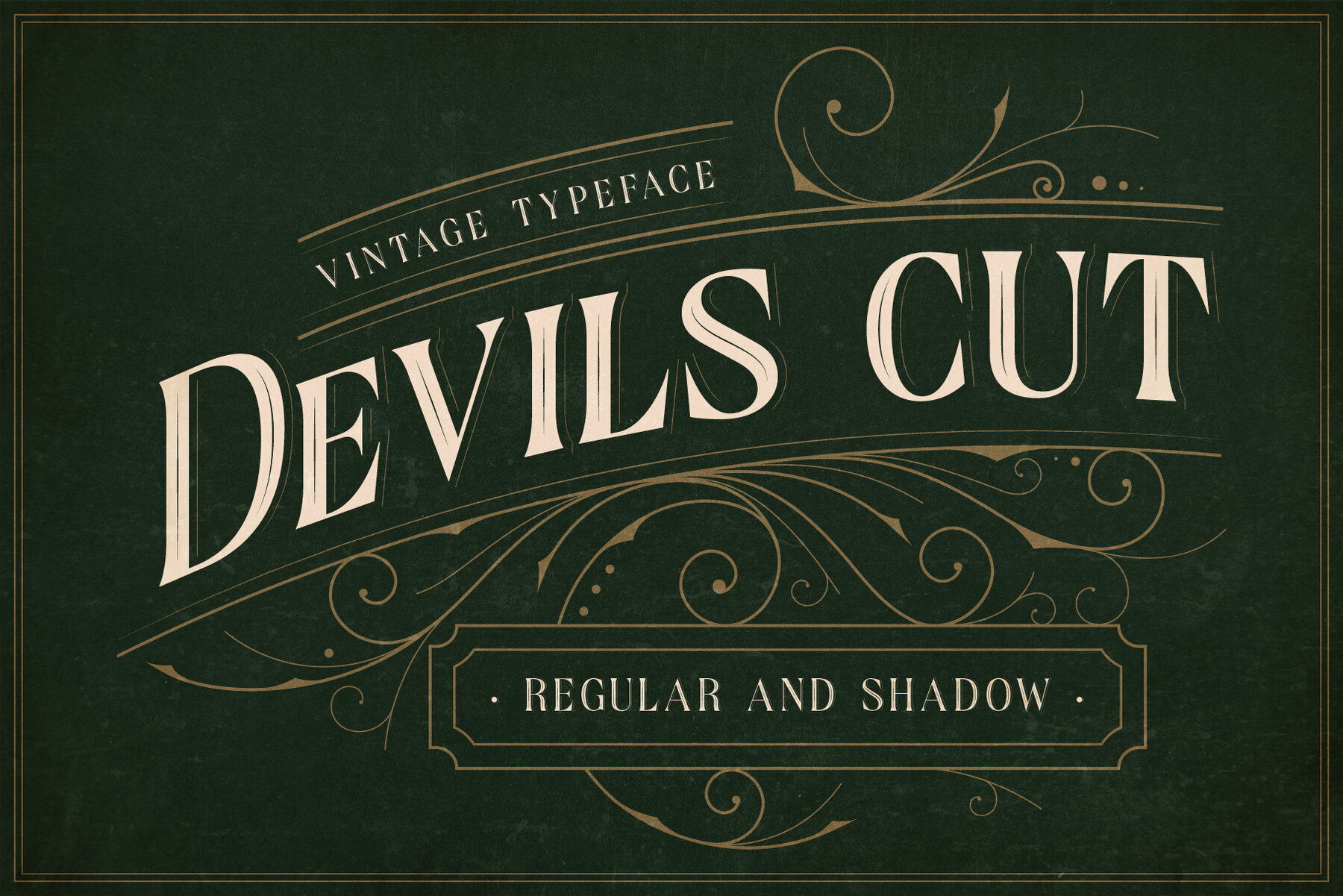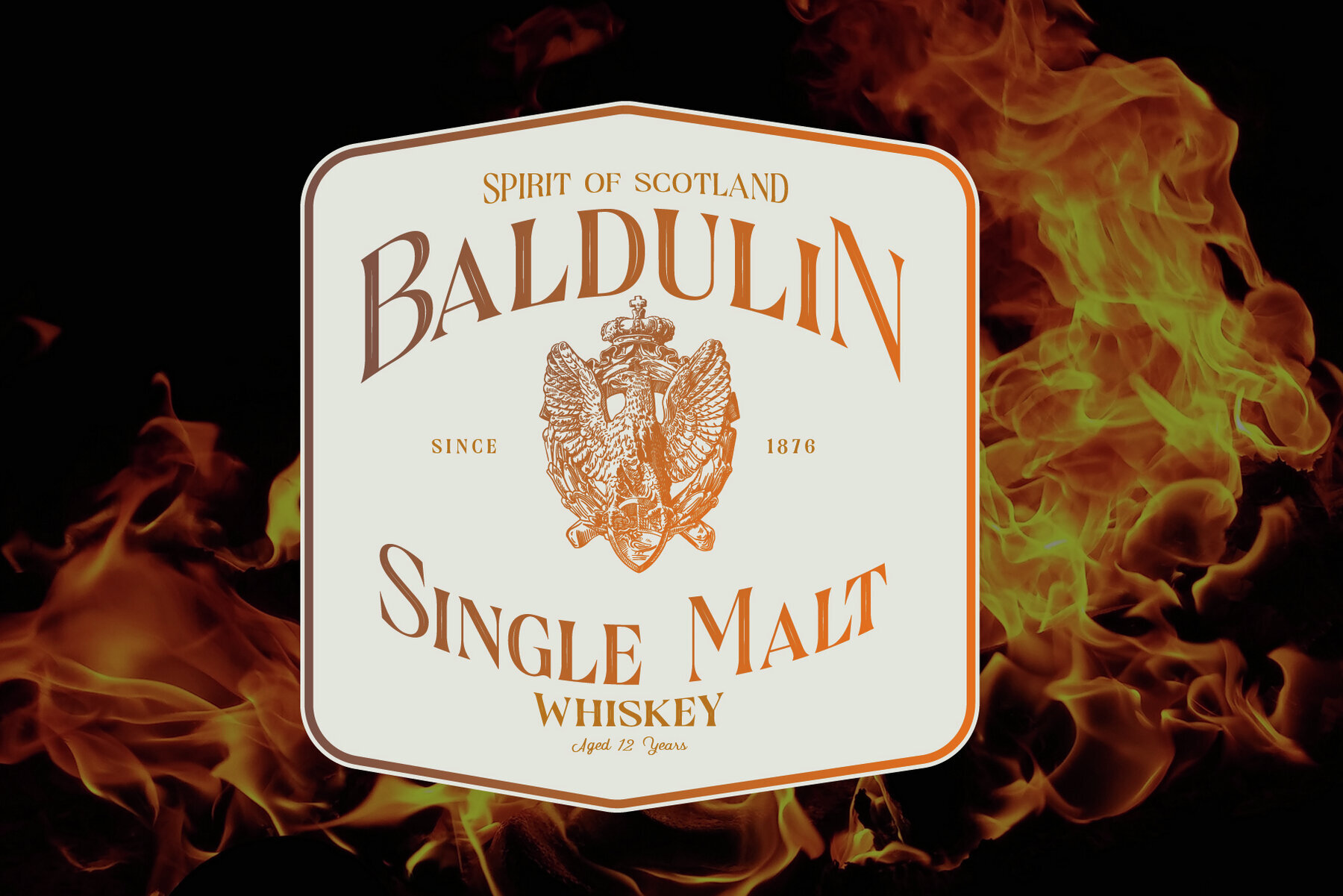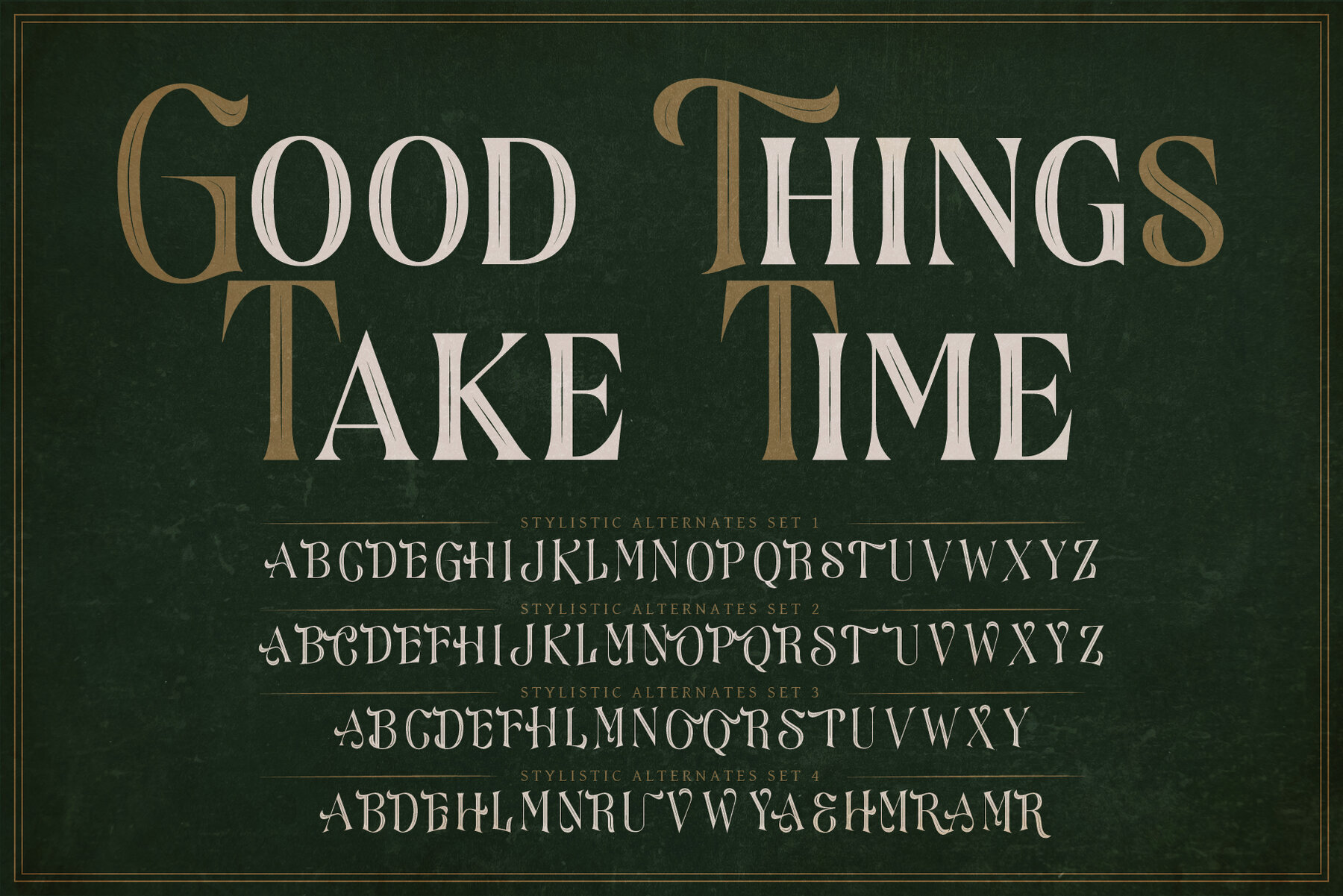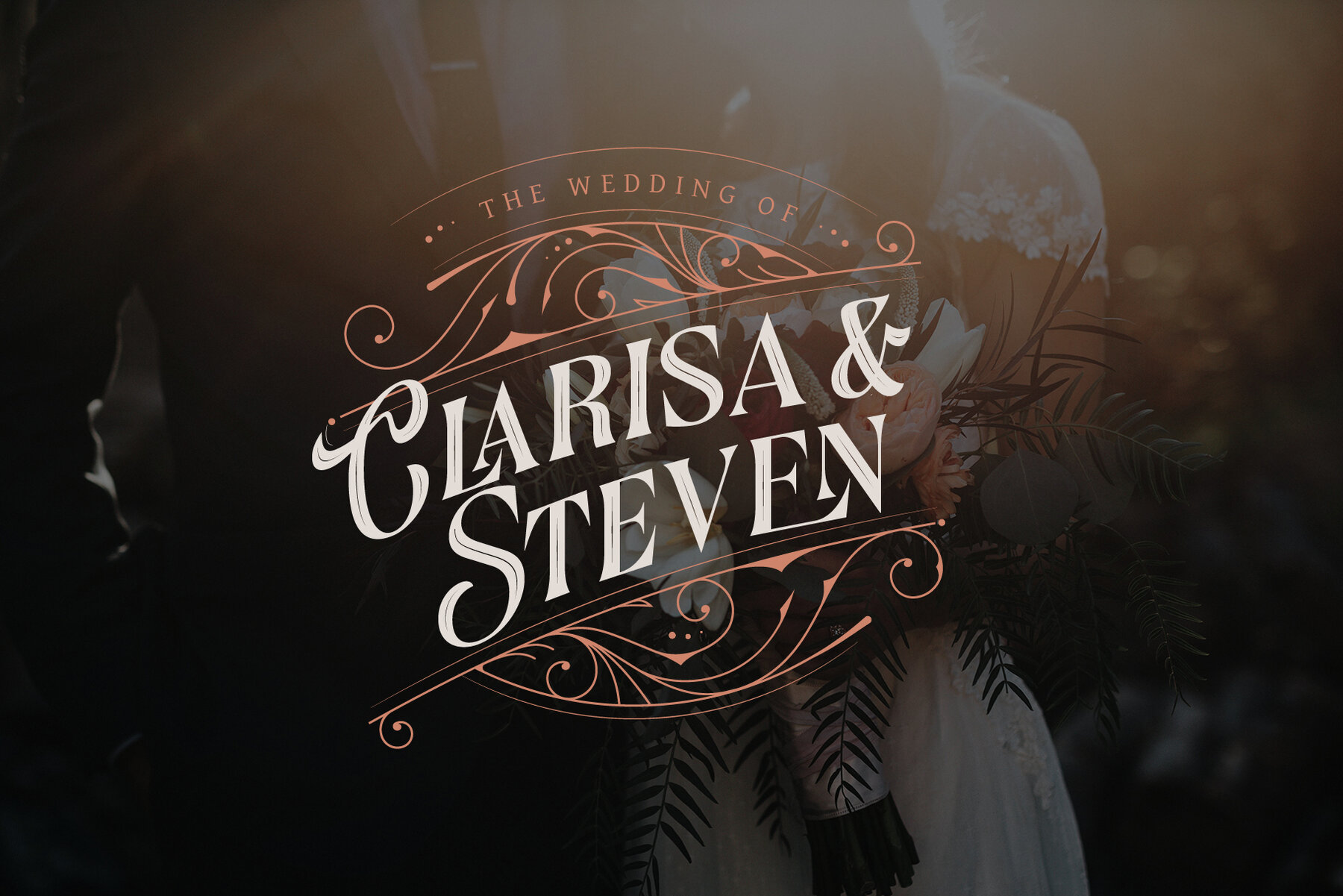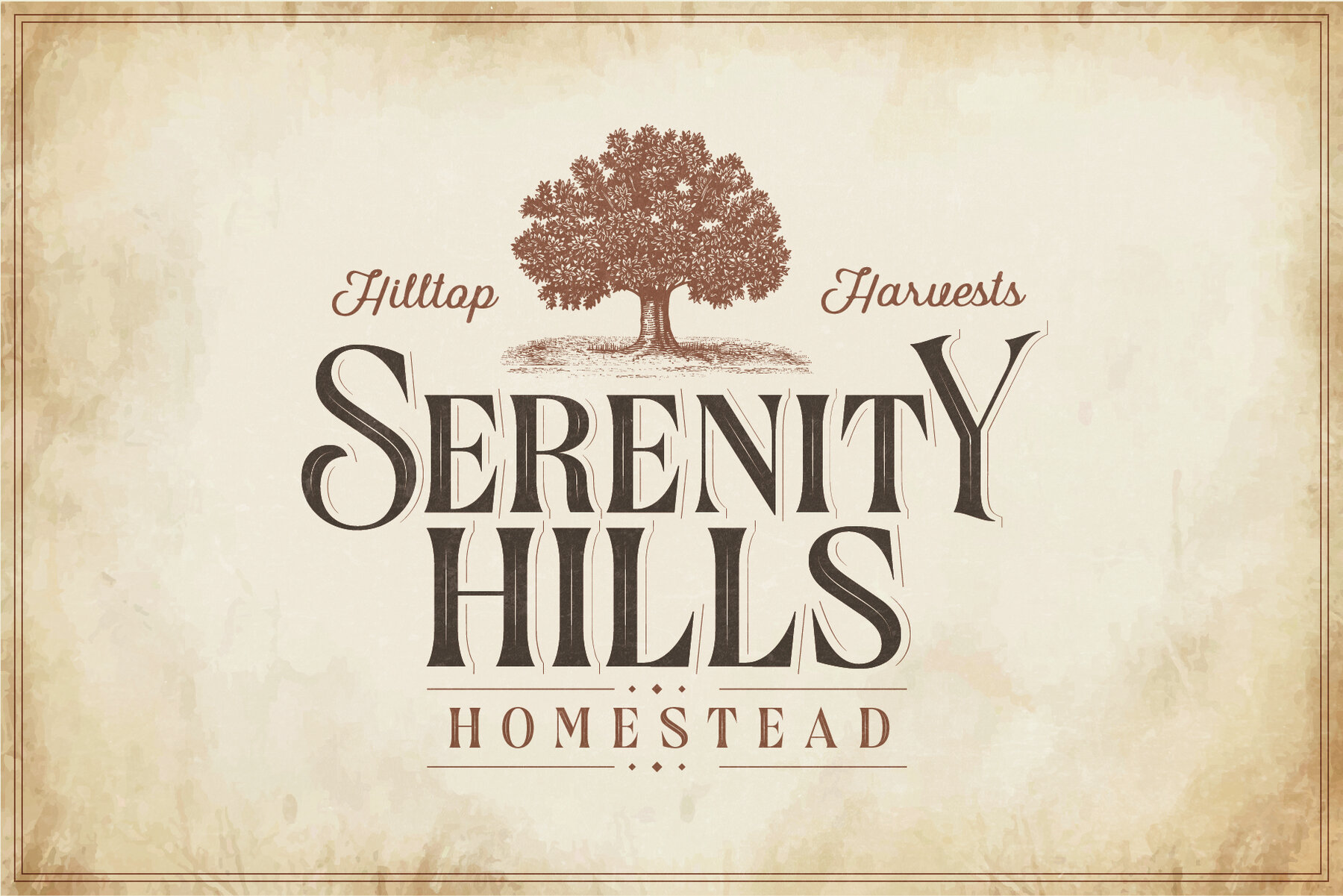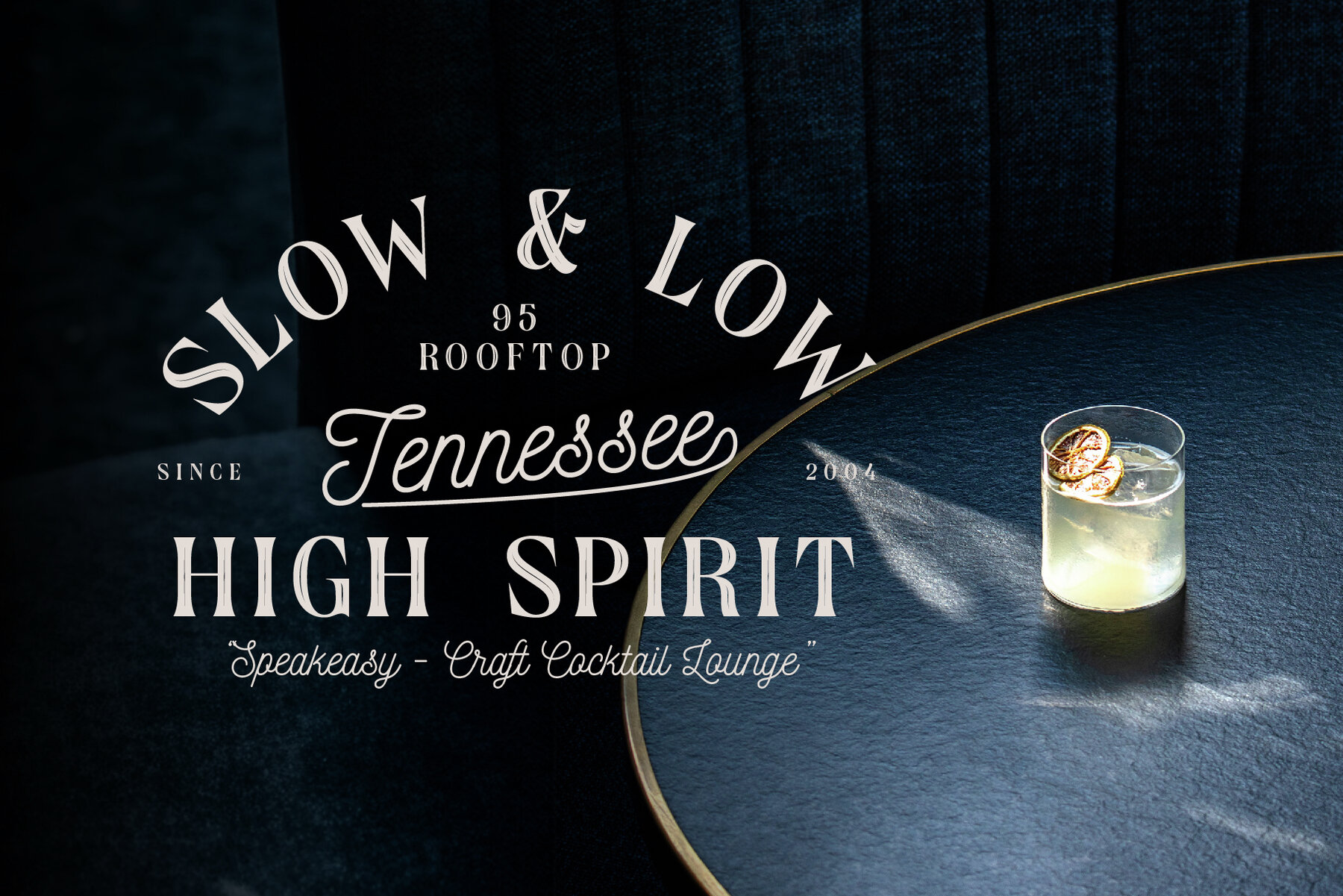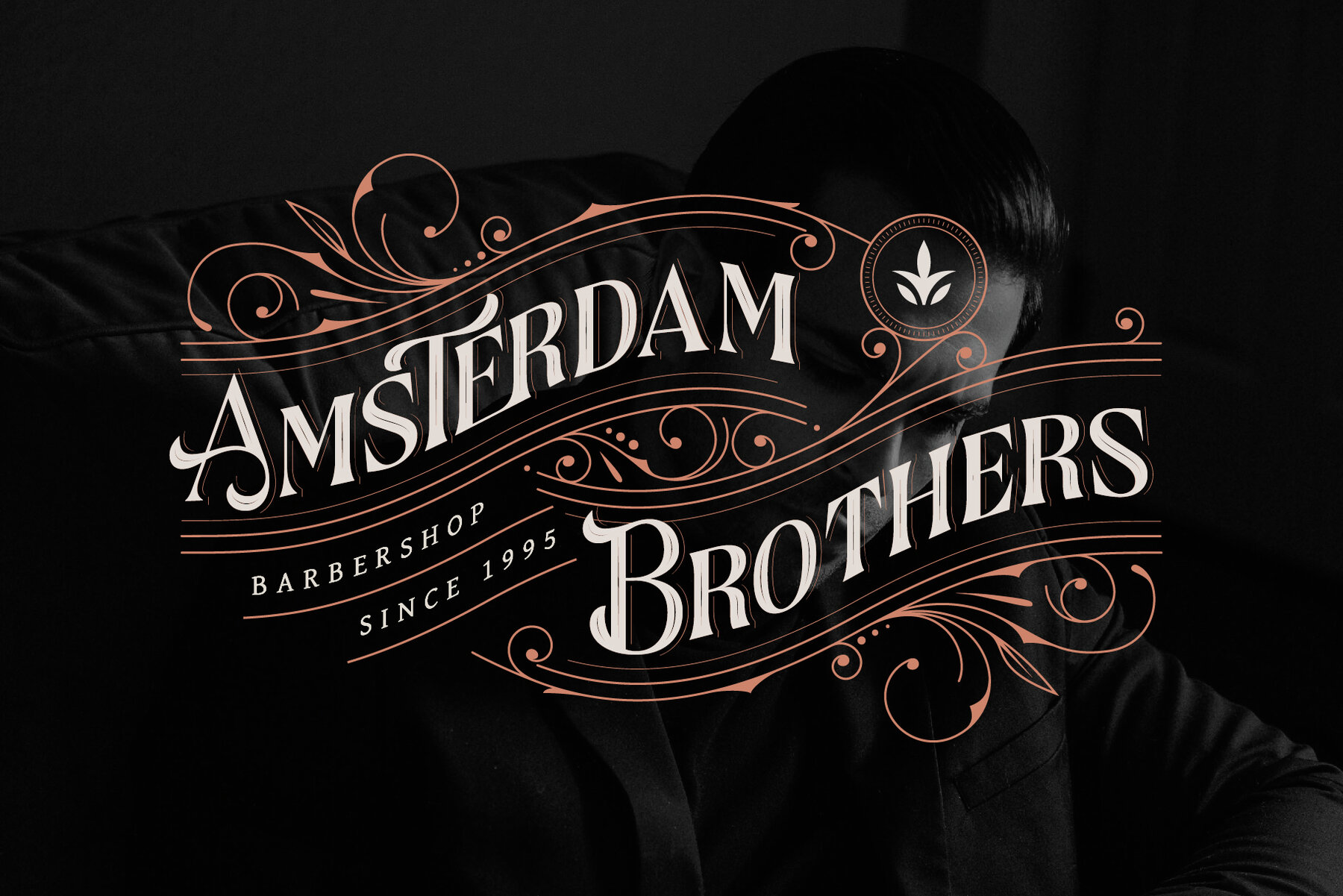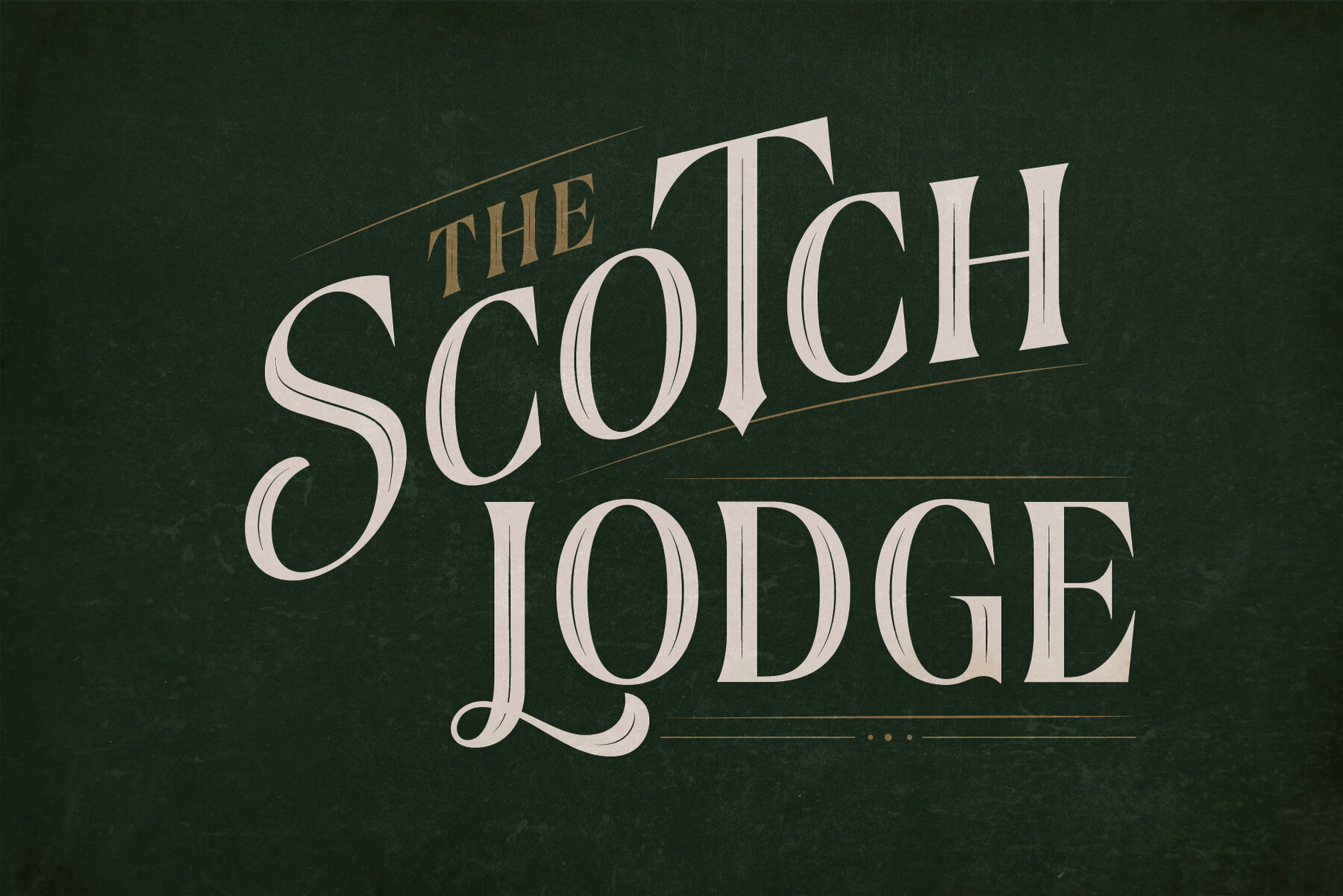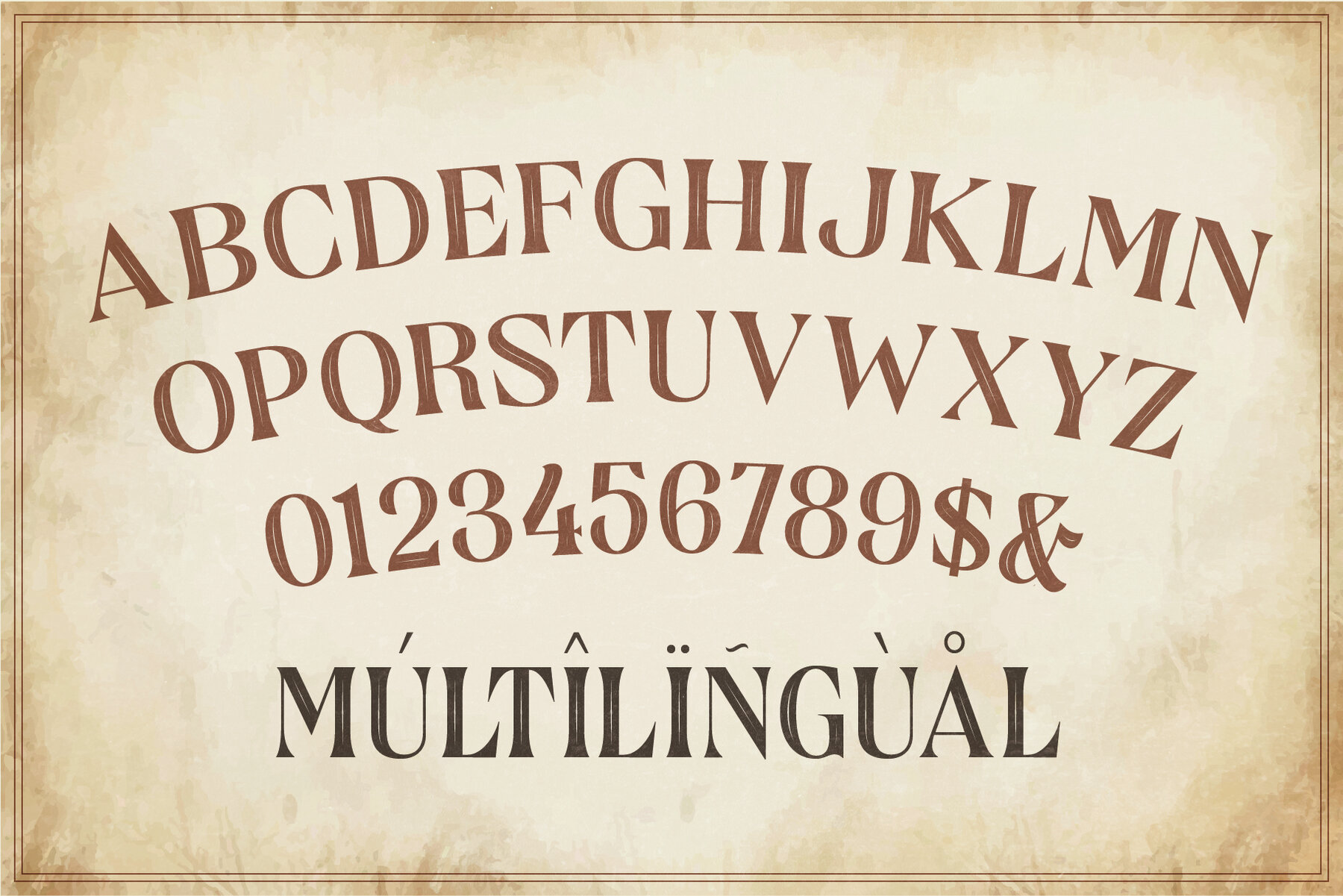
Devils Cut Font
Devils Cut is a whiskey label inspired vintage serif typeface. It features 2 styles: Regular & Shadow, allowing you to get a classic layered look in seconds. Devils Cut also has a subtle inline effect, creating an even more sophisticated appearance. This typeface is perfect for creating any designs which require a timeless feel. Great for labels, packaging, stationery, editorial design, logo designs & so much more.